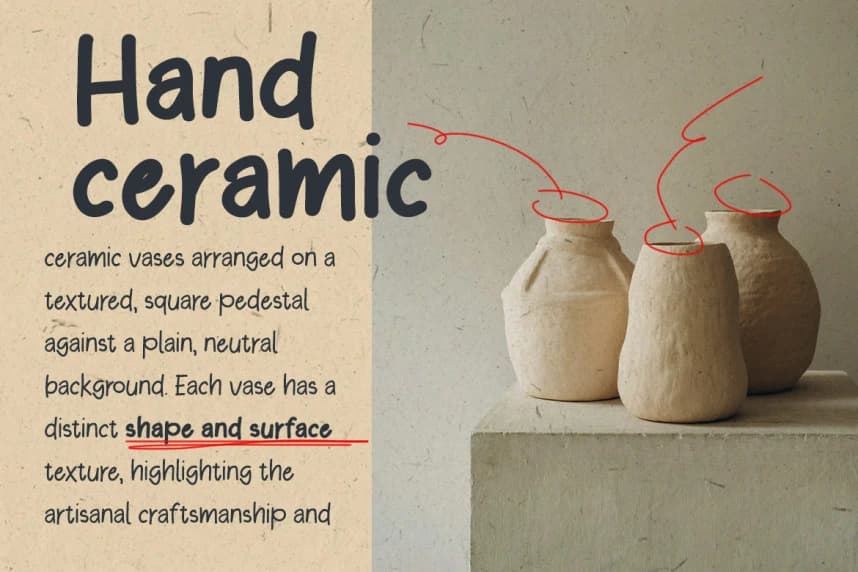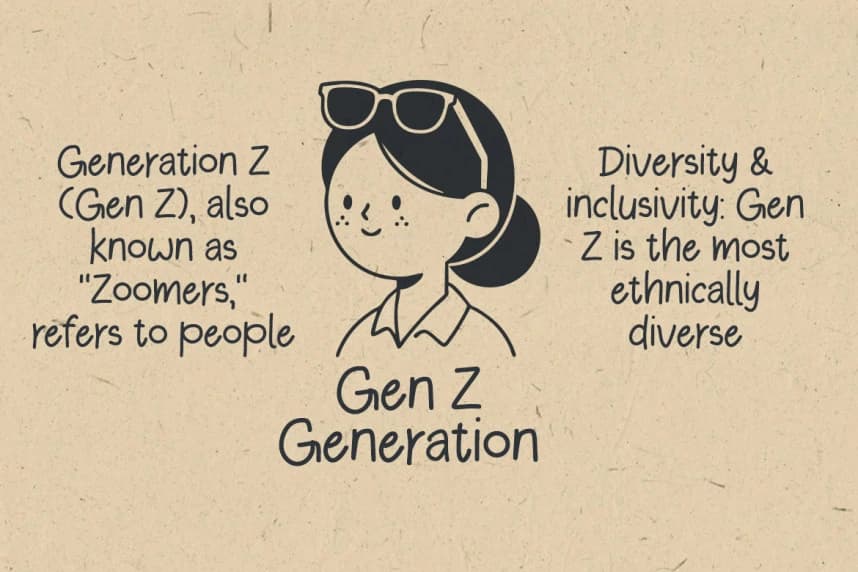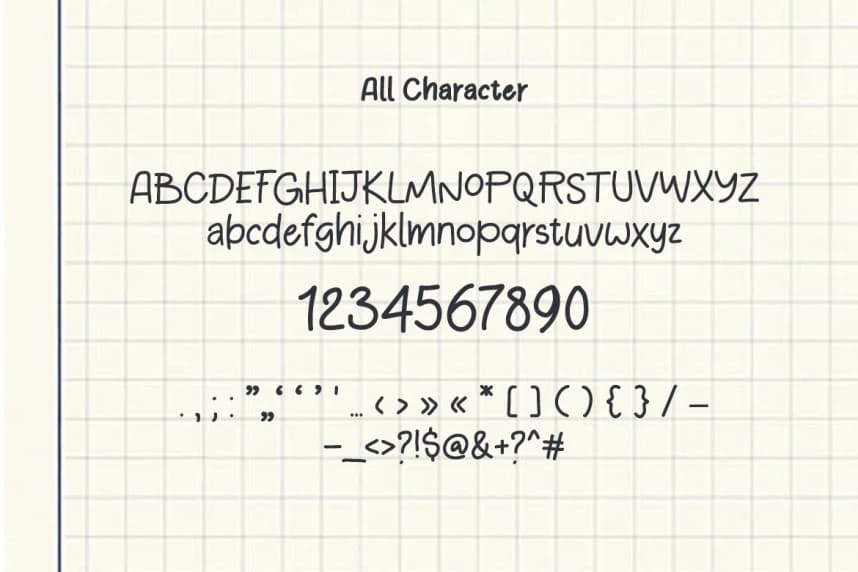
Walona Handraw Font
Walona Handraw Font - This typeface features a charming, organic aesthetic characterized by its hand-drawn appearance. The letterforms exhibit a consistent medium-to-heavy weight with soft, rounded terminals that evoke a friendly and approachable feel. Its strokes are slightly irregular